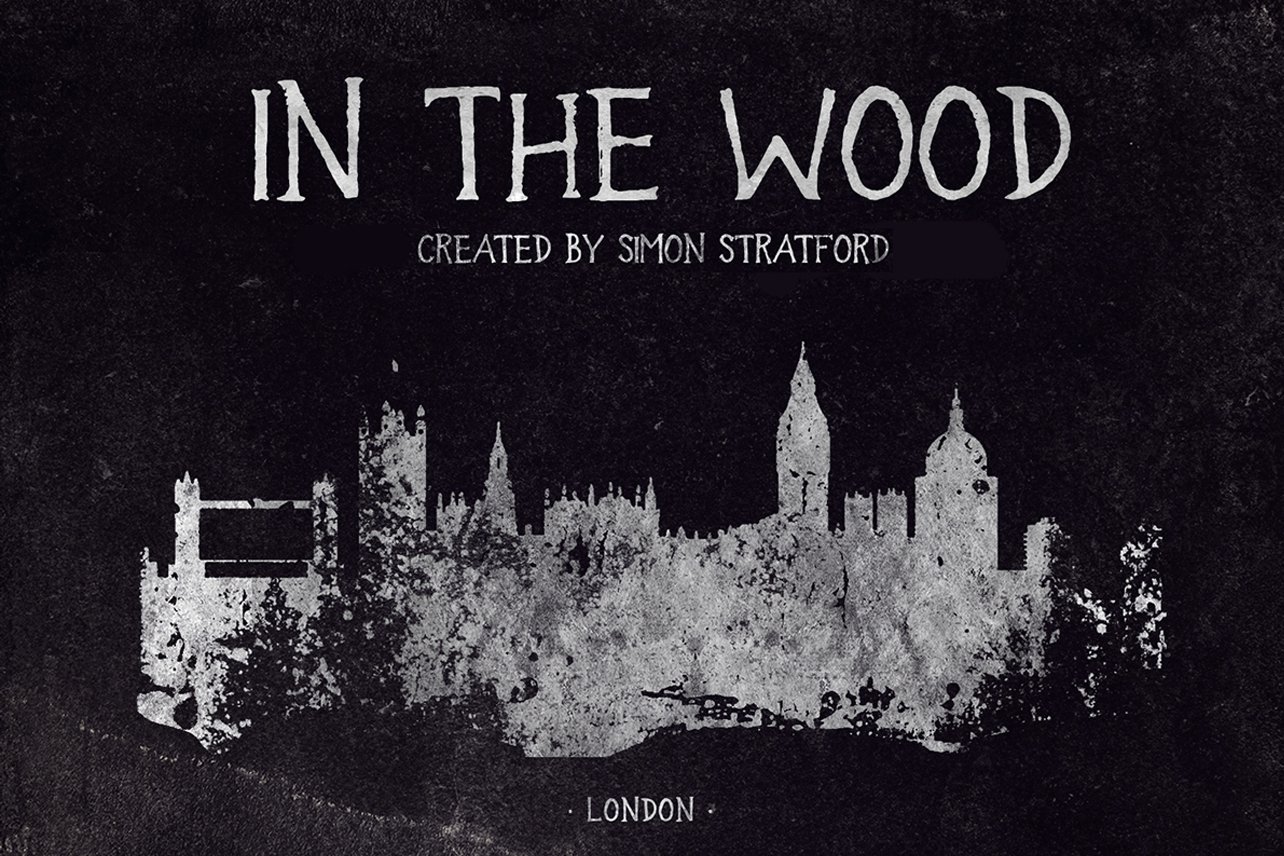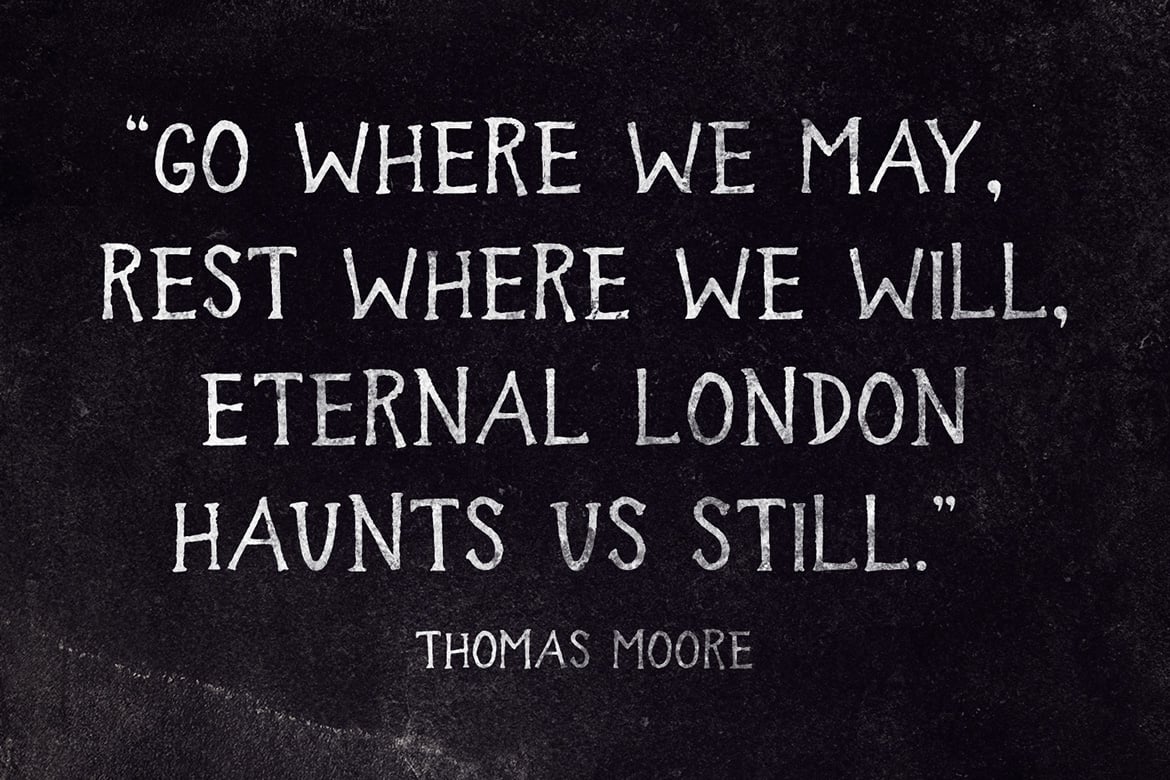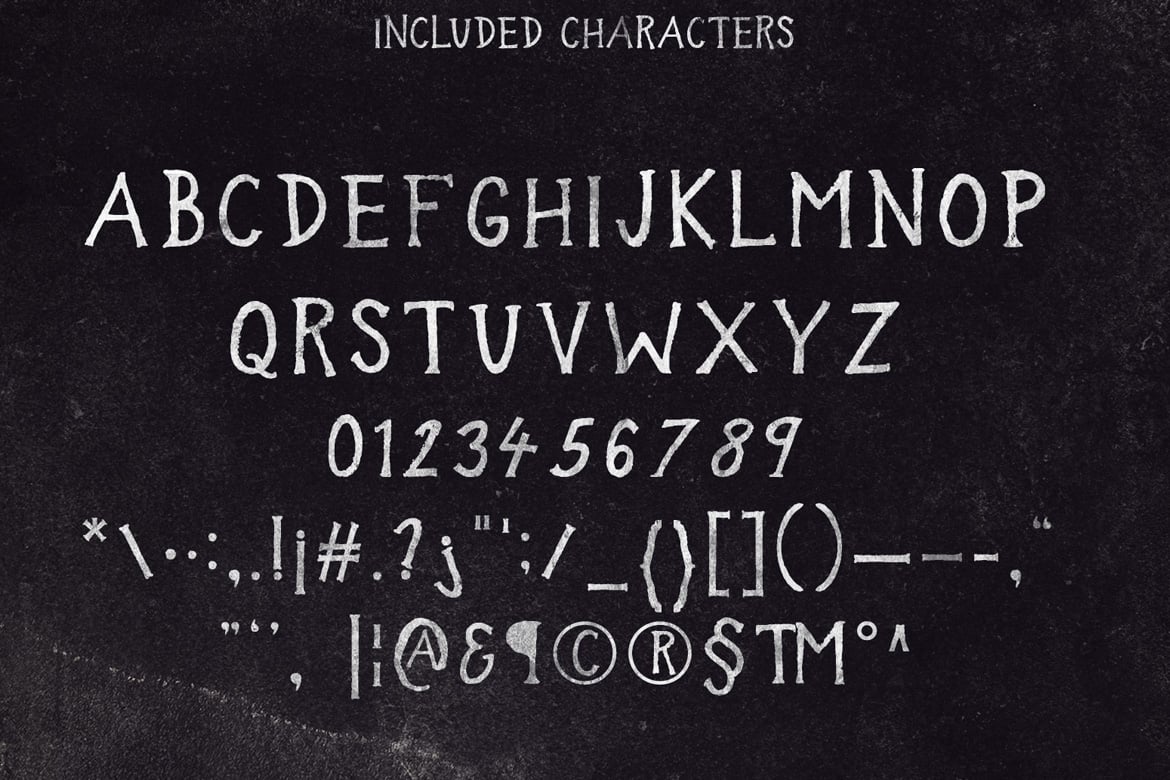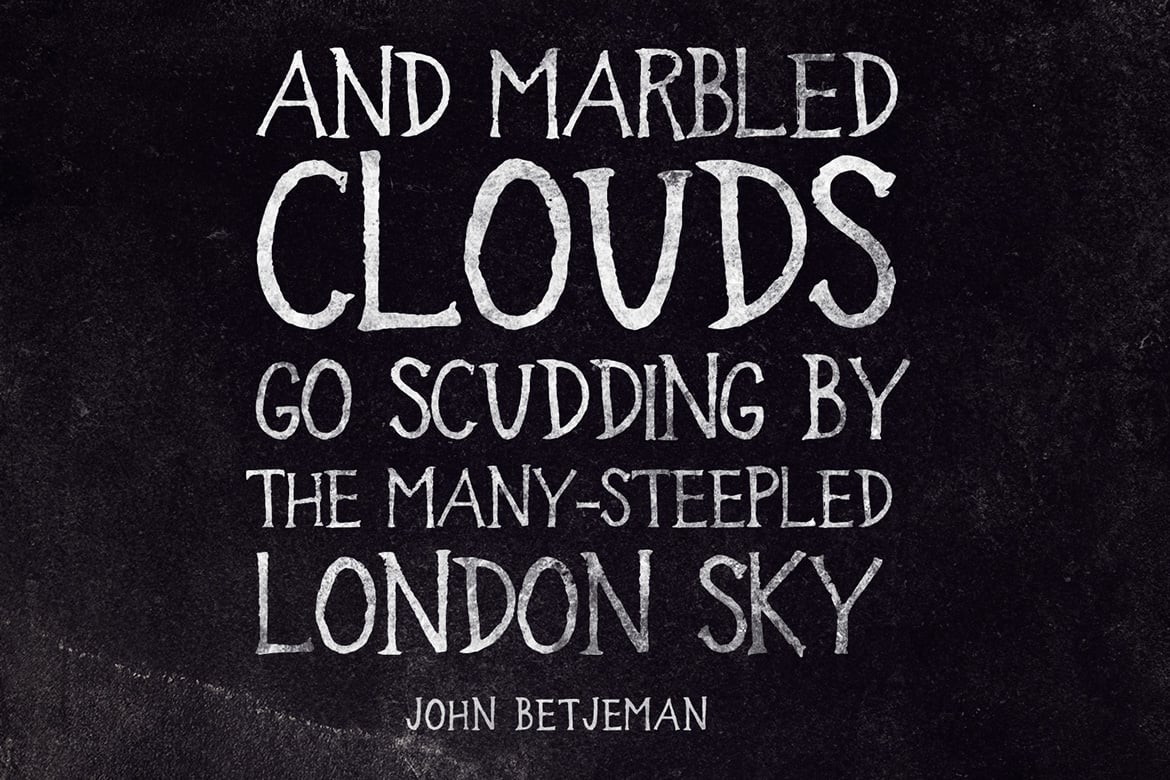
In the wood font
In the wood hard to classify but I was aiming for an old American gothic feel. It’s a uppercase display typeface. 100% handmade.
It looks a bit spooky, a bit scary and it’s quite distressed. It’s not full-on horror, but it looks creepy—more Marilyn Manson than Marilyn Monroe.
It only has capital letters but does include punctuation, symbols, numbers and support for Western, Central, and South Eastern European characters.
It’s a display typeface so use it for headlines and text at large sizes.